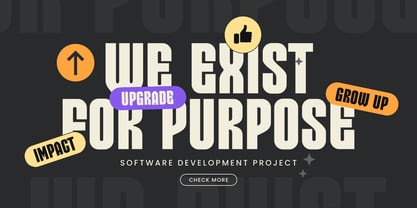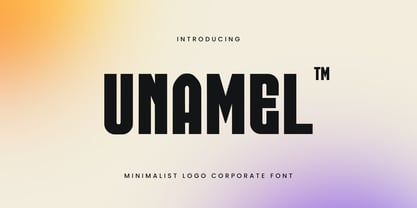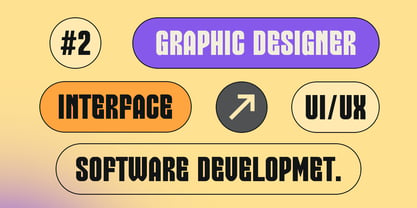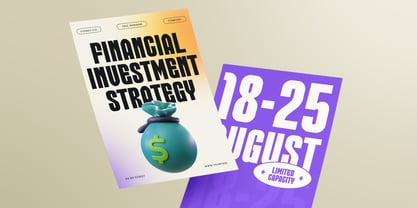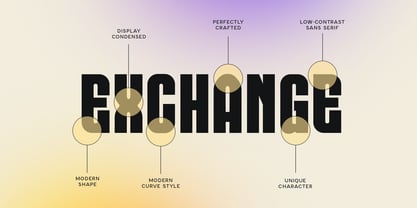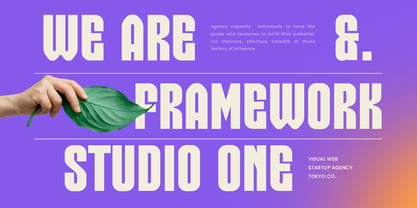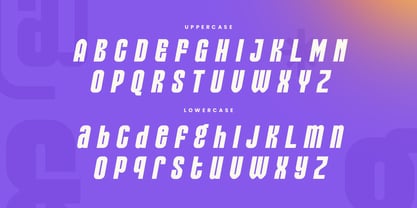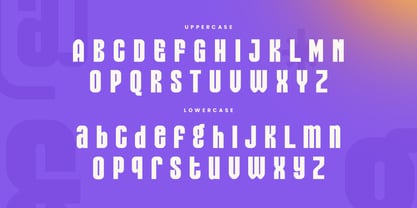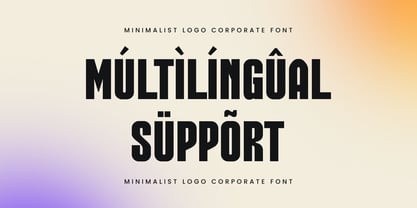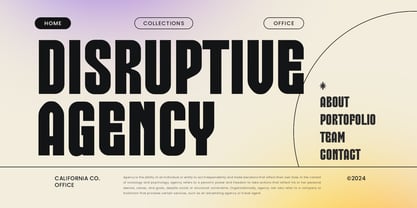
Unamel
by Sensatype Studio
The Unamel Font Family was designed by Zamroni Hamzah and published by Sensatype Studio. Unamel contains 2 styles and family package options.
Introducing Unamel, a font that blends condensed structure with minimalist aesthetics to bring sleek simplicity to your designs. Perfect for modern and clean layouts, Unamel ensures your work stands out with elegance and clarity.
The Story Behind Unamel:
Unamel was inspired by the beauty of minimalism and the need for clarity in modern design. Picture a bustling urban environment where clarity and simplicity are paramount. This font captures that essence, providing a refined and streamlined look. Unamel is ideal for designers who seek to create clean, professional, and stylish branding materials.
Unamel Font Features:
• Condensed Design: Sleek and space-saving, perfect for minimalist and modern aesthetics.
• Minimalist Aesthetics: Clean lines and simple forms that convey elegance and clarity.
• Versatile Usage: Ideal for logos, branding, headlines, and minimalist design projects.
• High Legibility: Clear and readable, ensuring your message is communicated effectively.
• Elegant Simplicity: Combines modern style with professional appeal.
Perfect For:
• Modern Branding: Create sleek and memorable logos for contemporary brands.
• Minimalist Layouts: Design clean and elegant layouts for websites and print materials.
• Professional Materials: Develop stylish business cards, letterheads, and office stationery.
• Marketing and Advertising: Enhance brochures, flyers, and advertisements with minimalist flair.
With Unamel, your designs will achieve a new level of modern simplicity and elegance. Whether you're working on branding, minimalist layouts, or professional materials, Unamel provides the perfect blend of condensed design and minimalist aesthetics. Elevate your design projects with Unamel and showcase your creativity with refined simplicity.
Designers: Zamroni Hamzah
Publisher: Sensatype Studio
Foundry: Sensatype Studio
Design Owner: Sensatype Studio